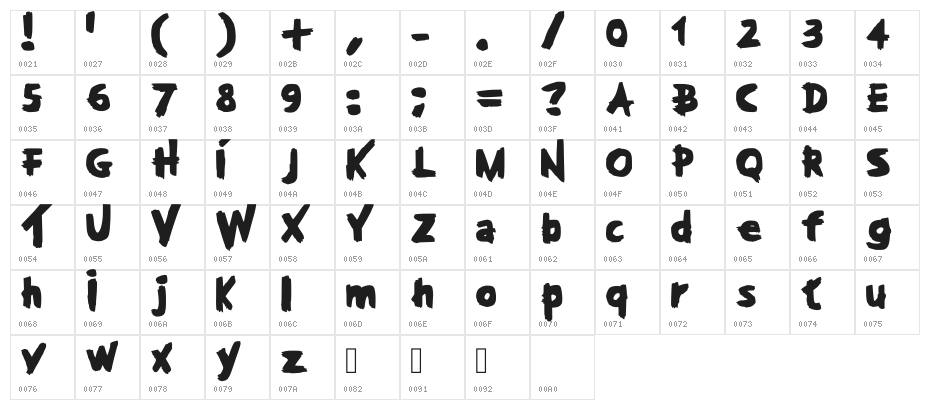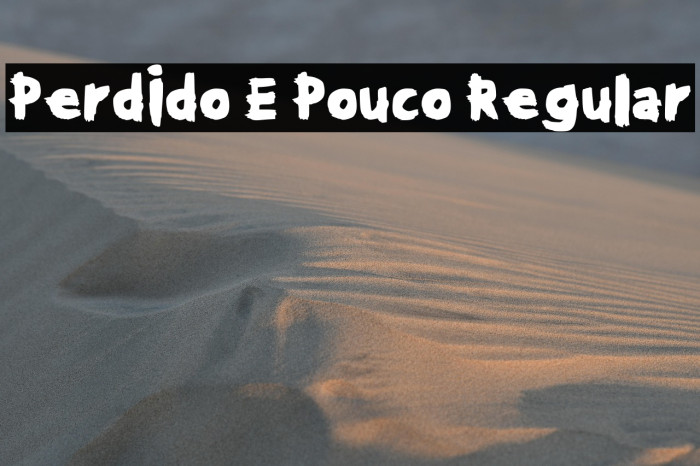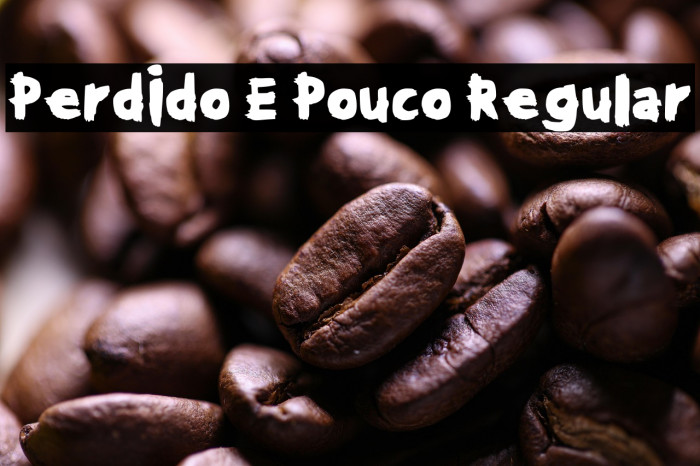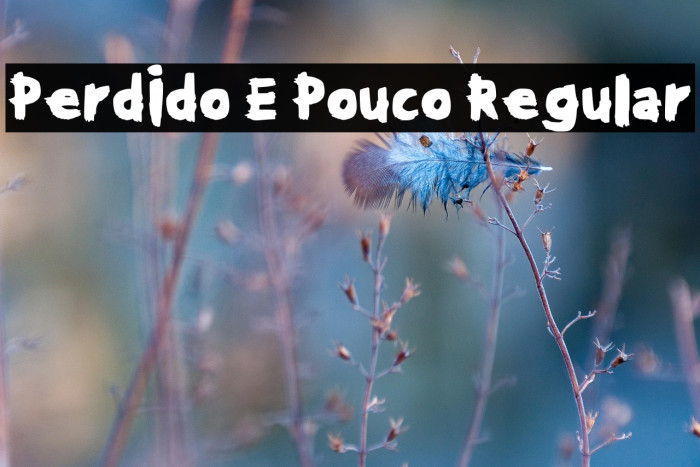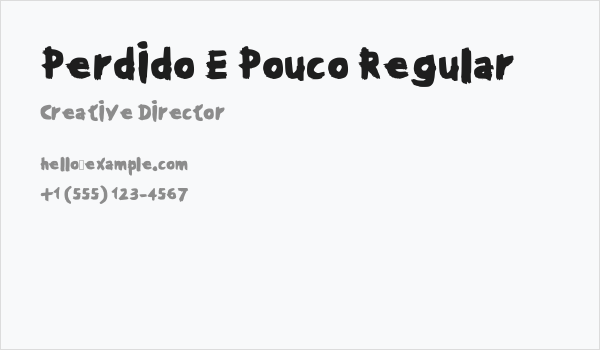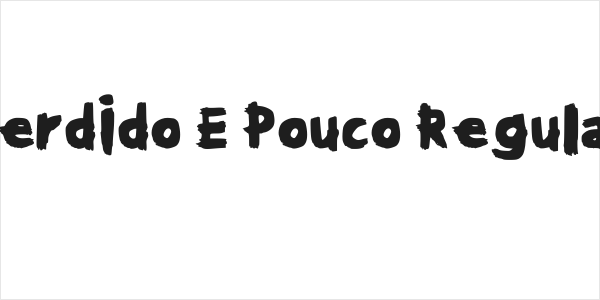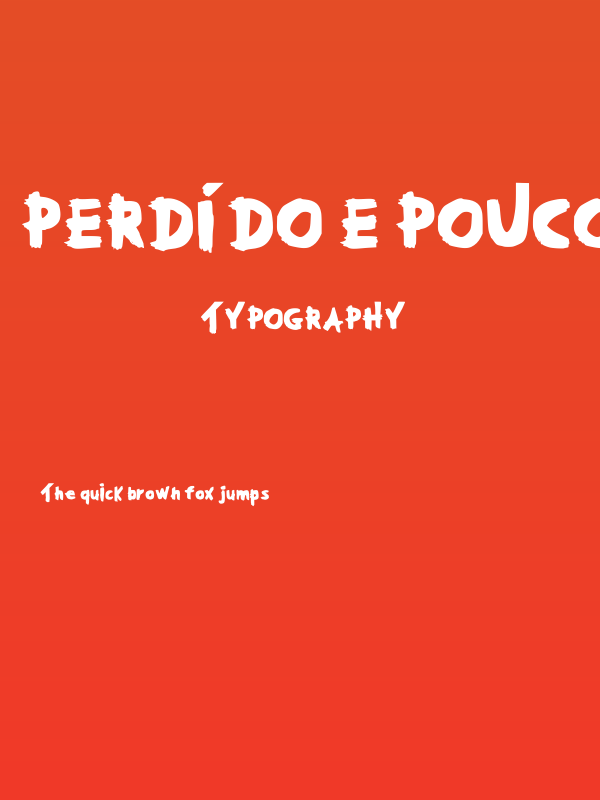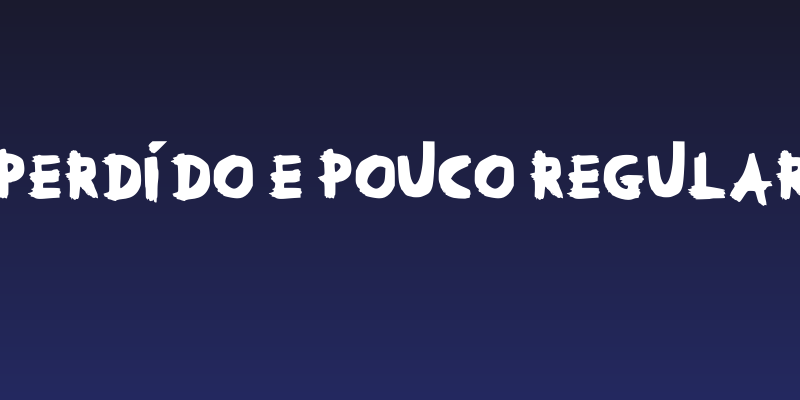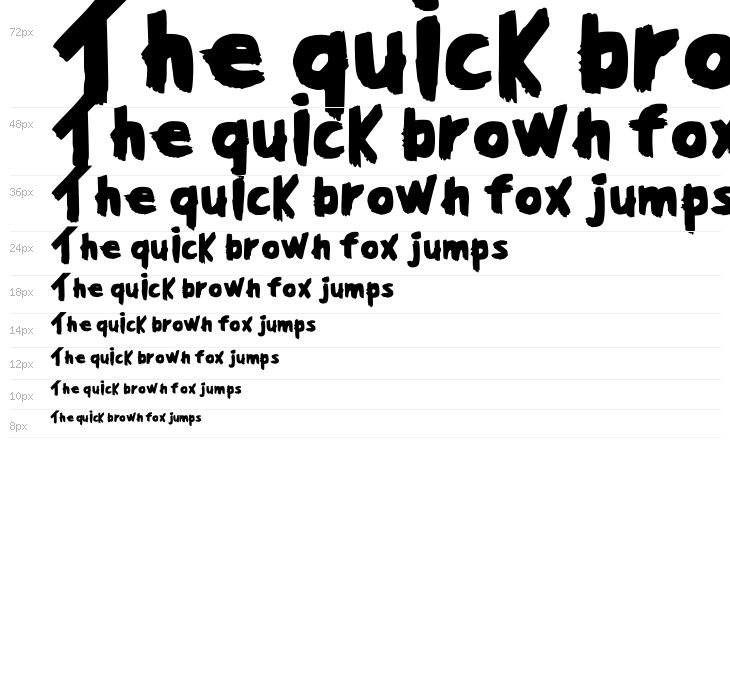
Perdido E Pouco Regular Font
Perdido E Pouco Regular Description
This font features a bold, brush-like appearance with a hand-painted aesthetic. The characters are irregular and dynamic, giving a sense of movement and energy. The uppercase and lowercase letters maintain a consistent style, with thick strokes and rough edges that suggest a casual, artistic flair. Numbers and special characters follow the same design, ensuring a cohesive look across all elements. The font's unique style makes it stand out, ideal for projects that require a touch of creativity and boldness.
| Overall Style | Artistic, Bold, Creative |
| Proposed Projects | Ideal for posters, album covers, branding, and creative advertising campaigns. |